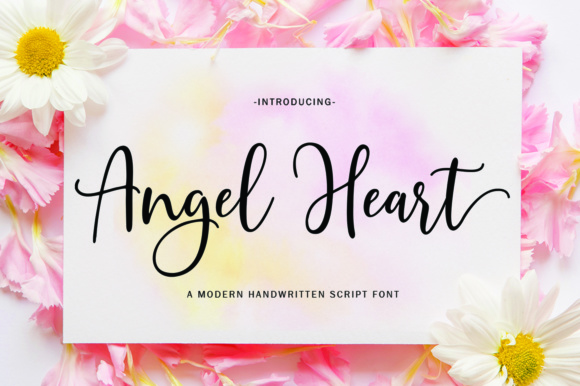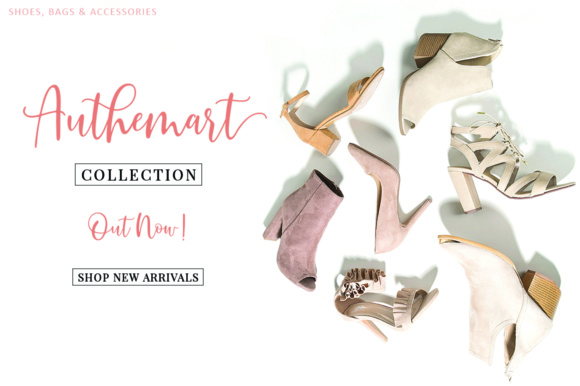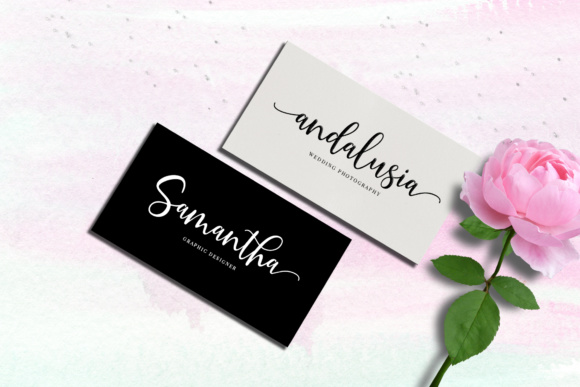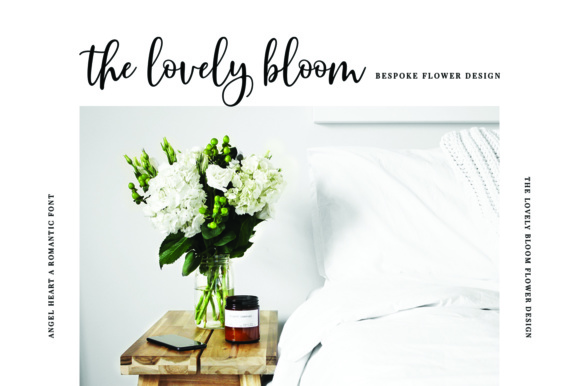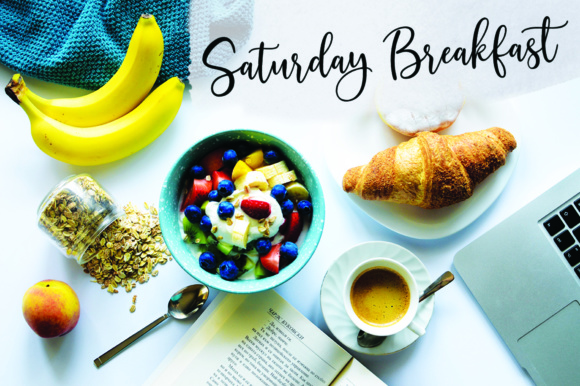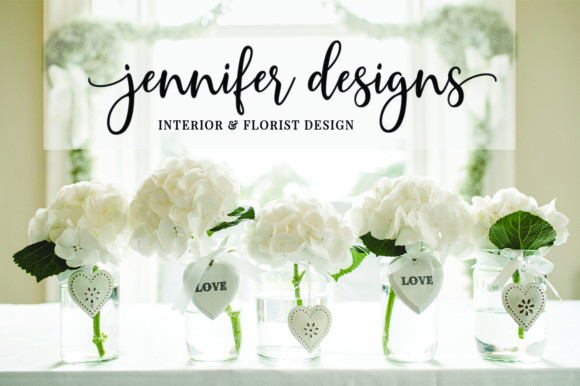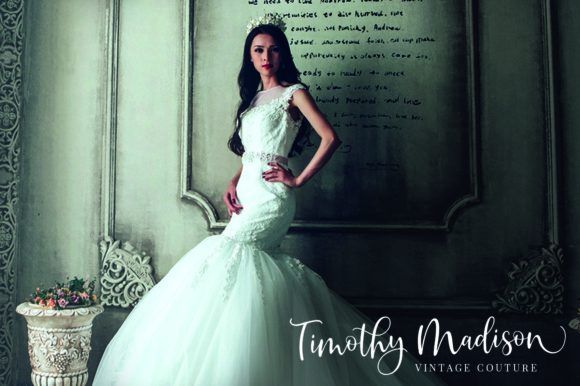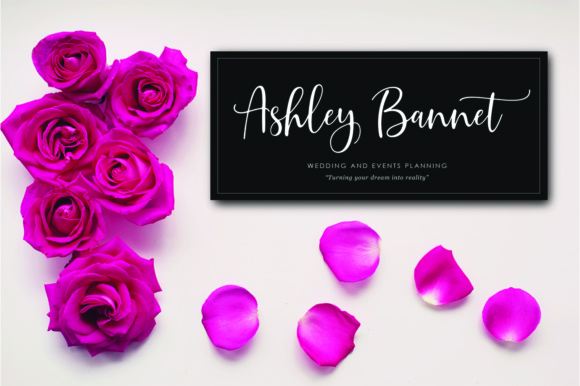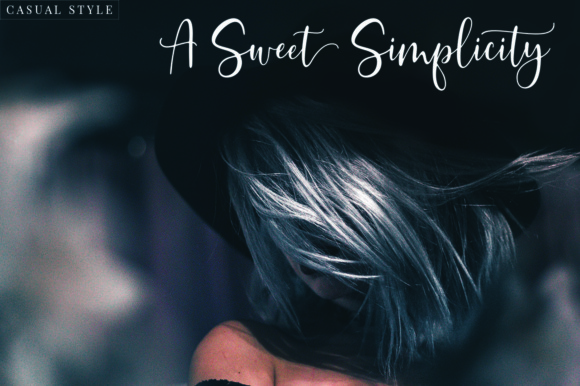
Angel Heart Script Font
About Angel Heart Script Font
Angel Heart is a modern script with handwriting, decorative characters, and dancing baselines! Angel Heart is very suitable for blog headers, branding, t-shirts, weddings, social media, product designs, and more.